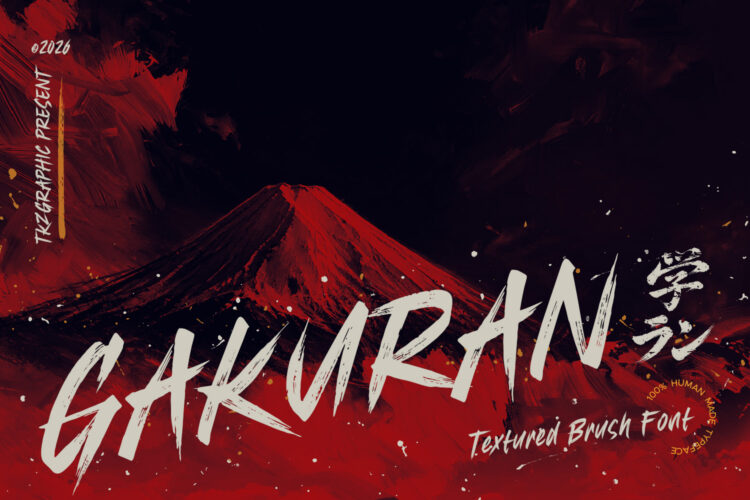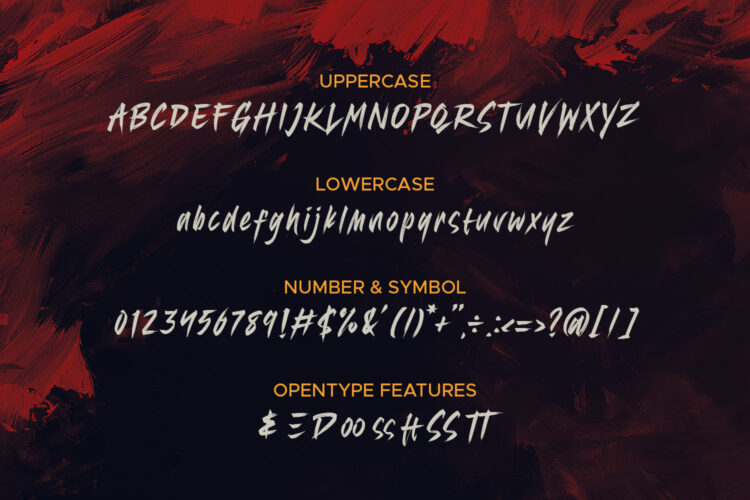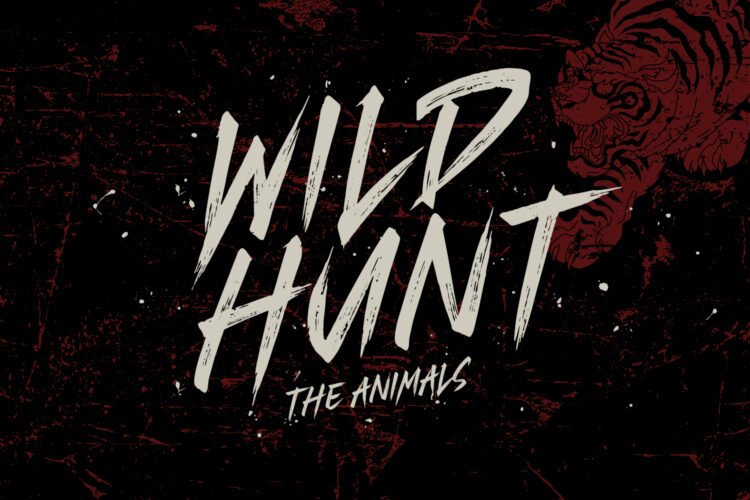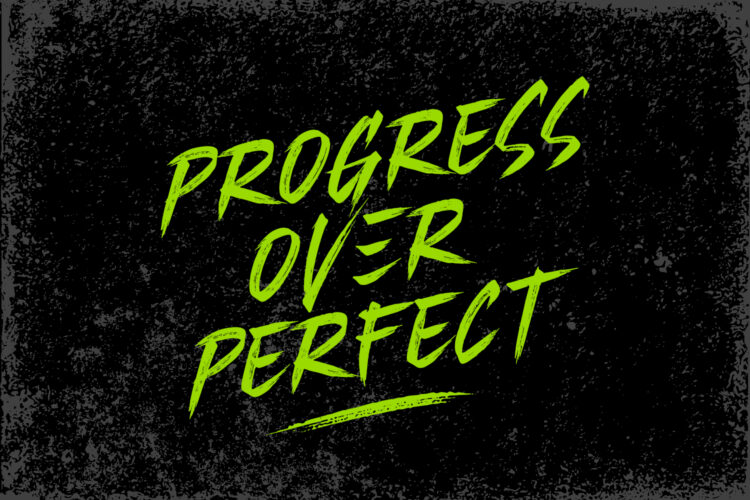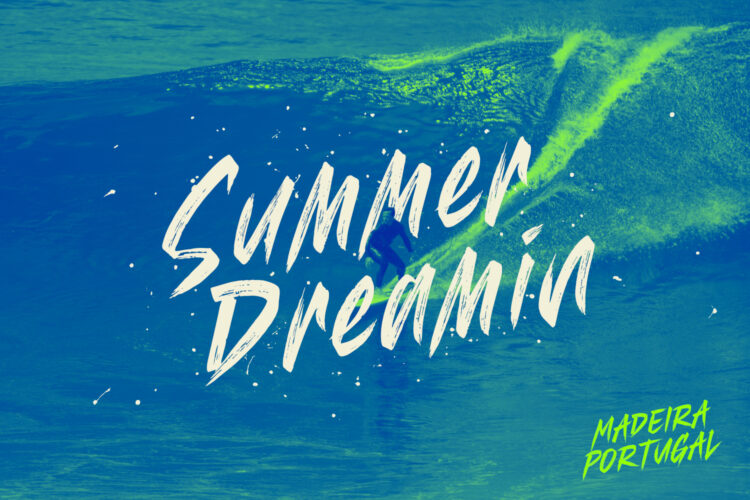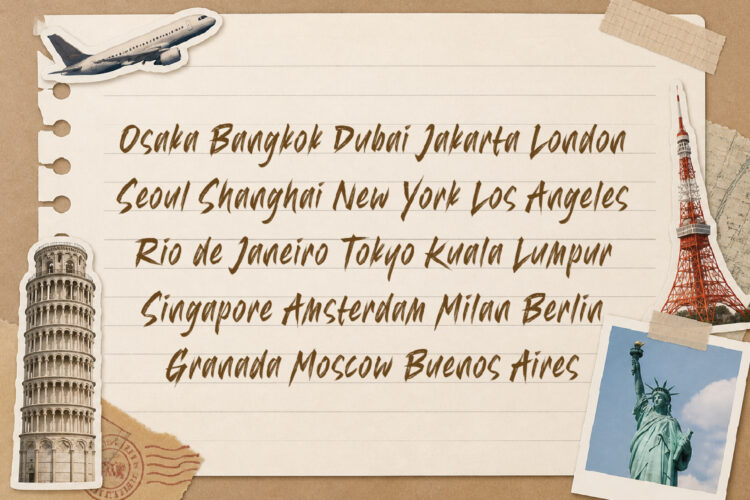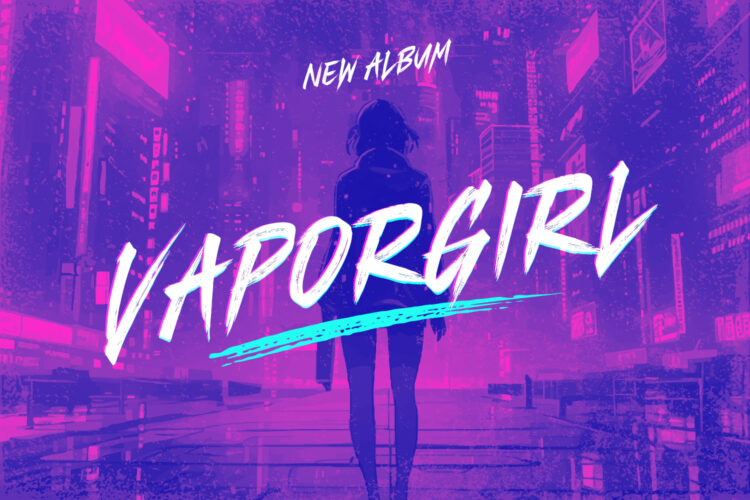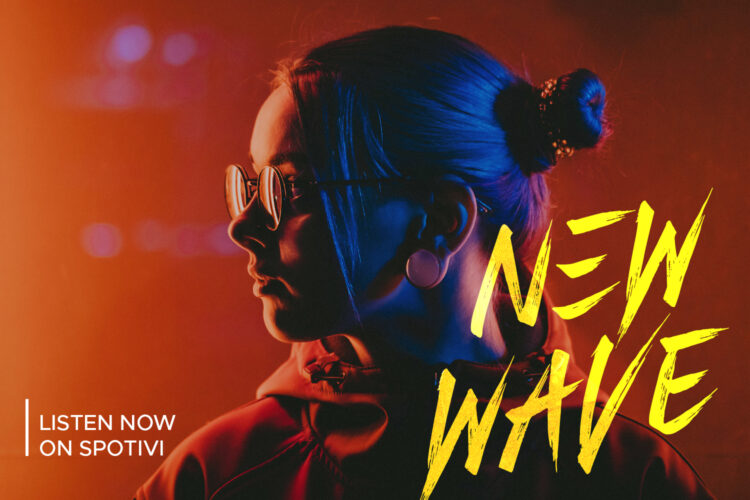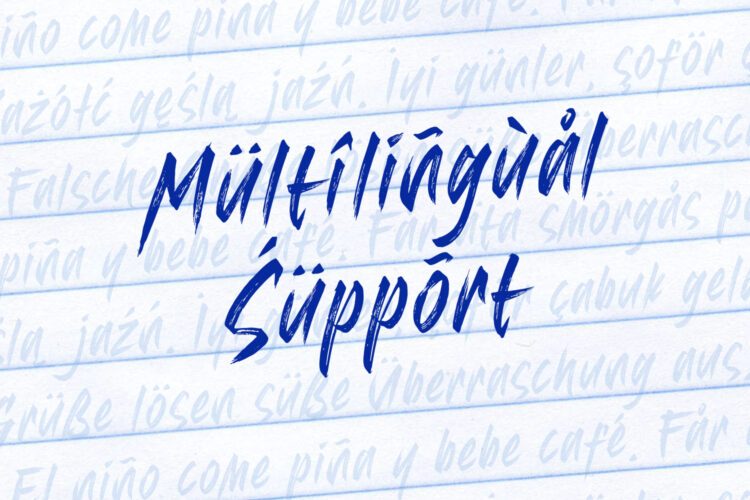
Gakuran
Gakuran is a bold, flat brush-style display font featuring quick, textured strokes that capture the raw energy of hand-drawn lettering. Perfect for eye-catching headlines and standout titles.
Designed with multilingual support, Gakuran includes a wide range of Latin characters and diacritics, allowing it to work seamlessly across multiple languages.
Ideal for logos, posters, branding, quotes, and titles, Gakuran delivers a natural handwritten style with a timeless feel.
– Standards Characters
– Numerals & punctuation
– Opentype Features
– Multilingual Support
Gakuran – Modern Brush Font